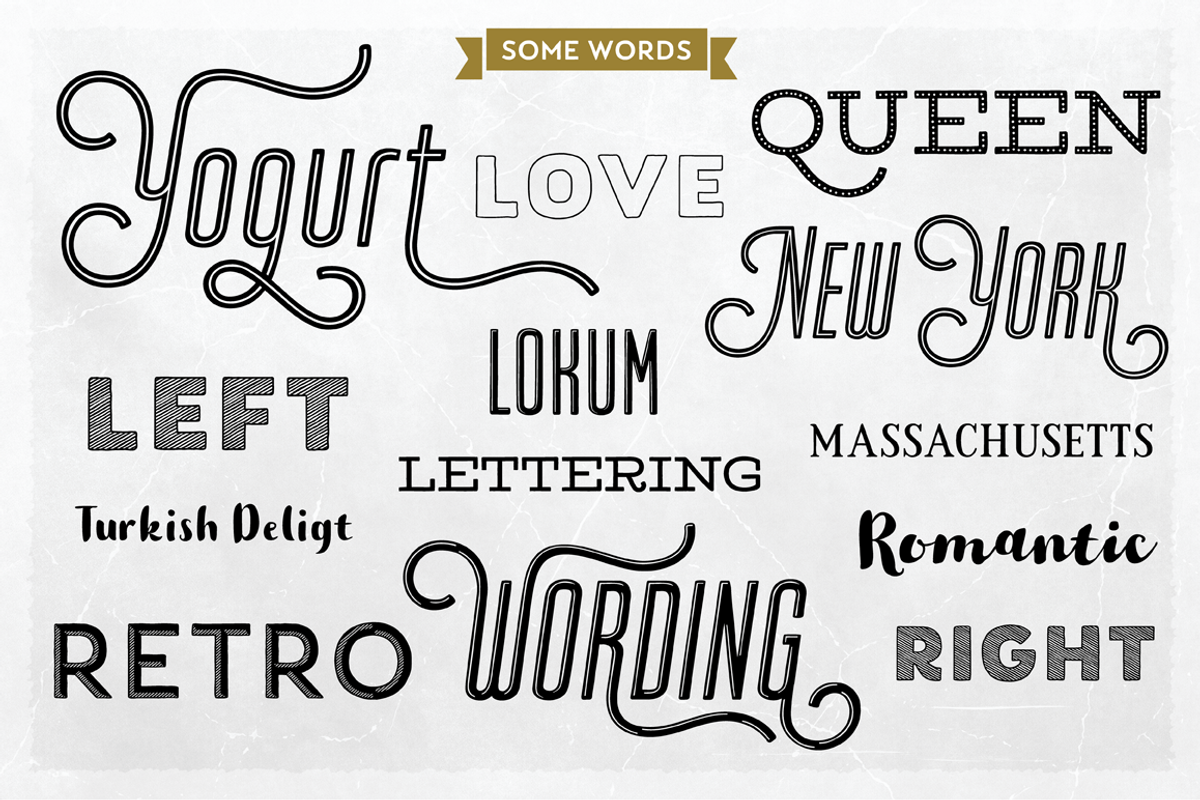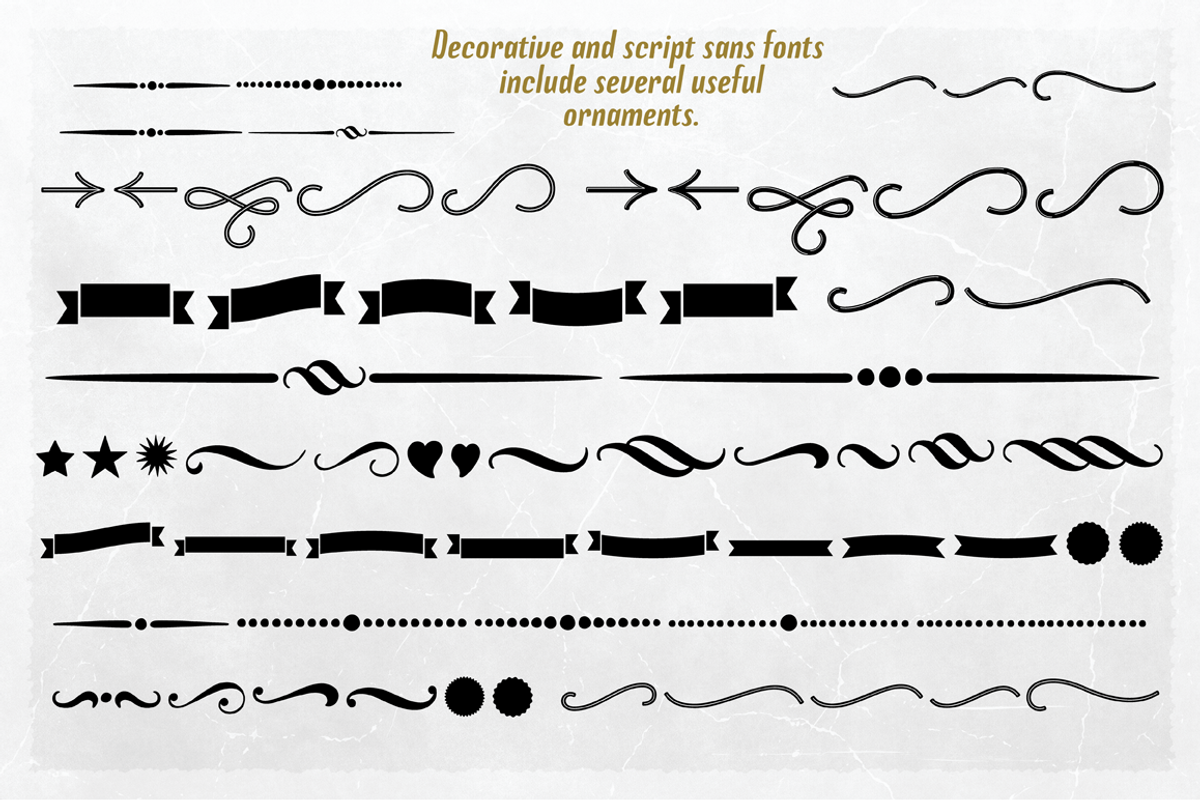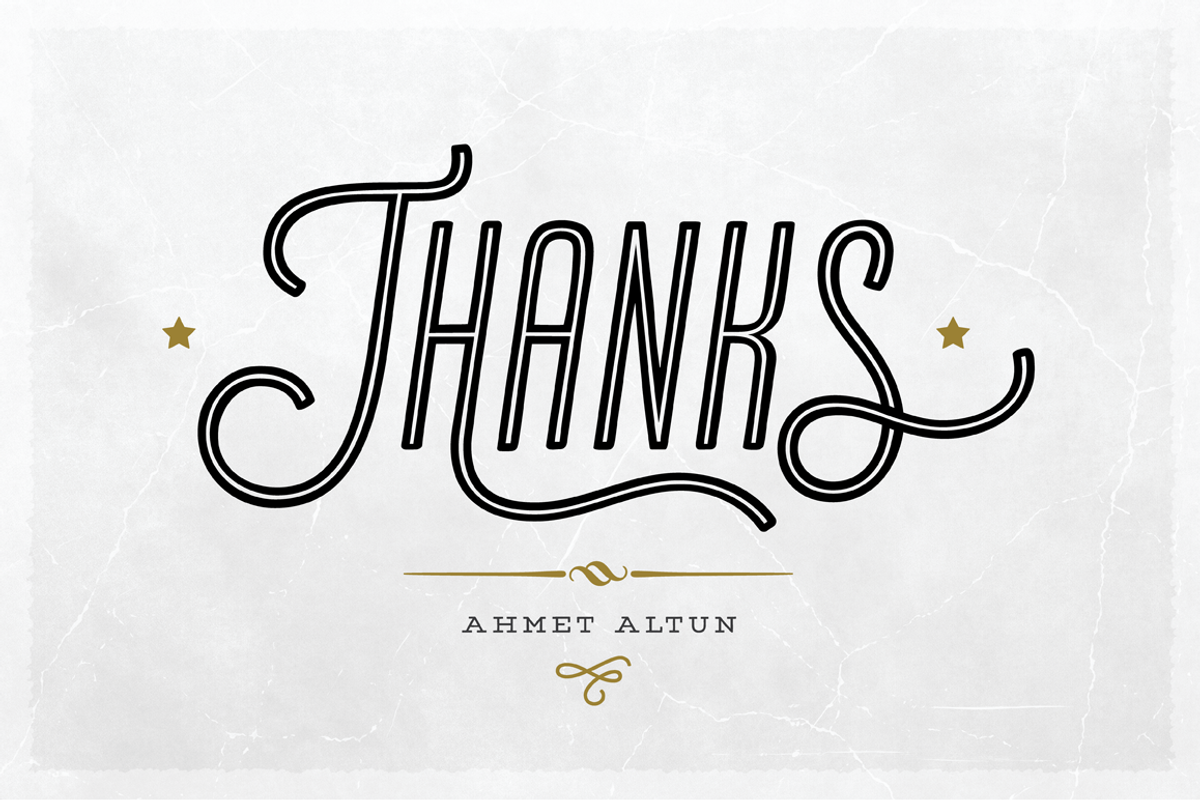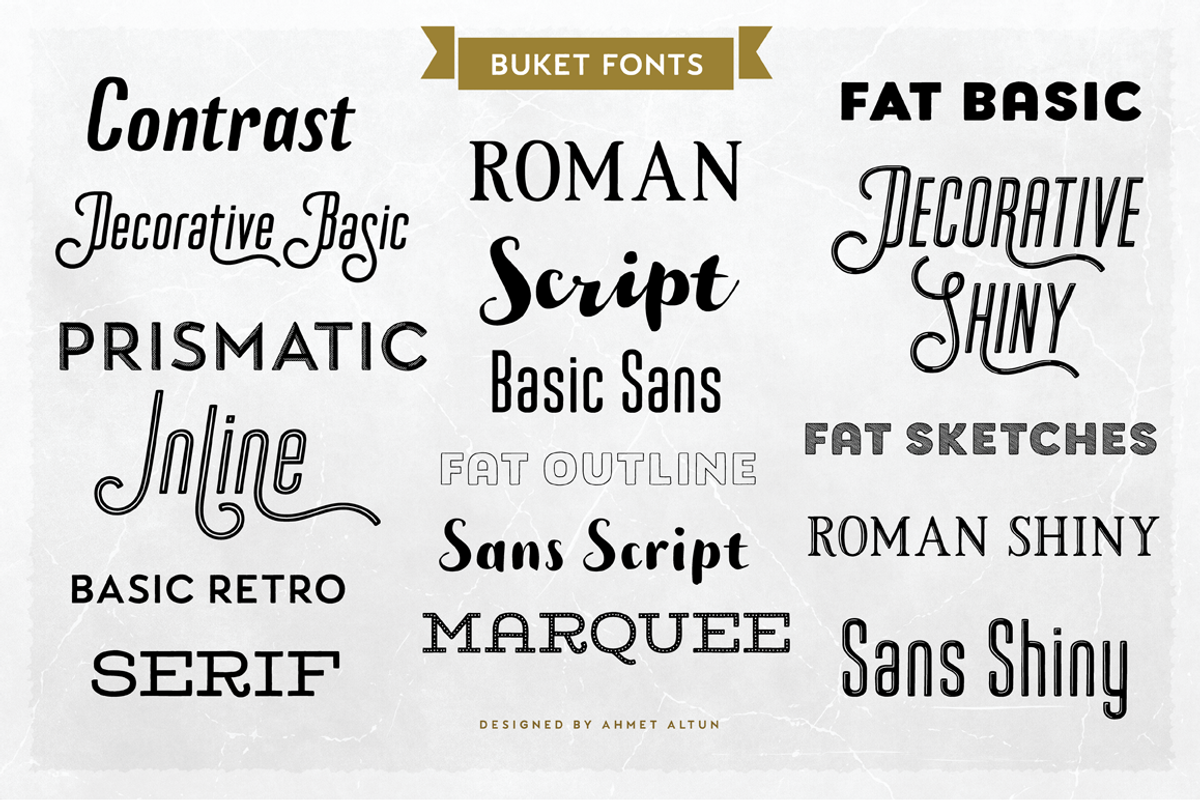
Buket Font Collection
Buket Font Collection by Ahmet Altun is a font selected for branding, posters, packaging, typography.
- Bouquet or in Turkish, Buket Font Collection includes 18 styles and textures which are different but compatible with each other.
- Buket Contrast
- Buket Deco Basic
- Buket Deco Inline
- Buket Deco Shiny
- Buket Fat Basic
- Buket Fat Outline
- Buket Fat Sketch1
- Buket Fat Sketch2
- Buket Retro Basic
- Buket Retro Prisma
Why Buket Font Collection is worth a look
Buket Font Collection by Ahmet Altun fits naturally into Branding, posters, packaging, typography.